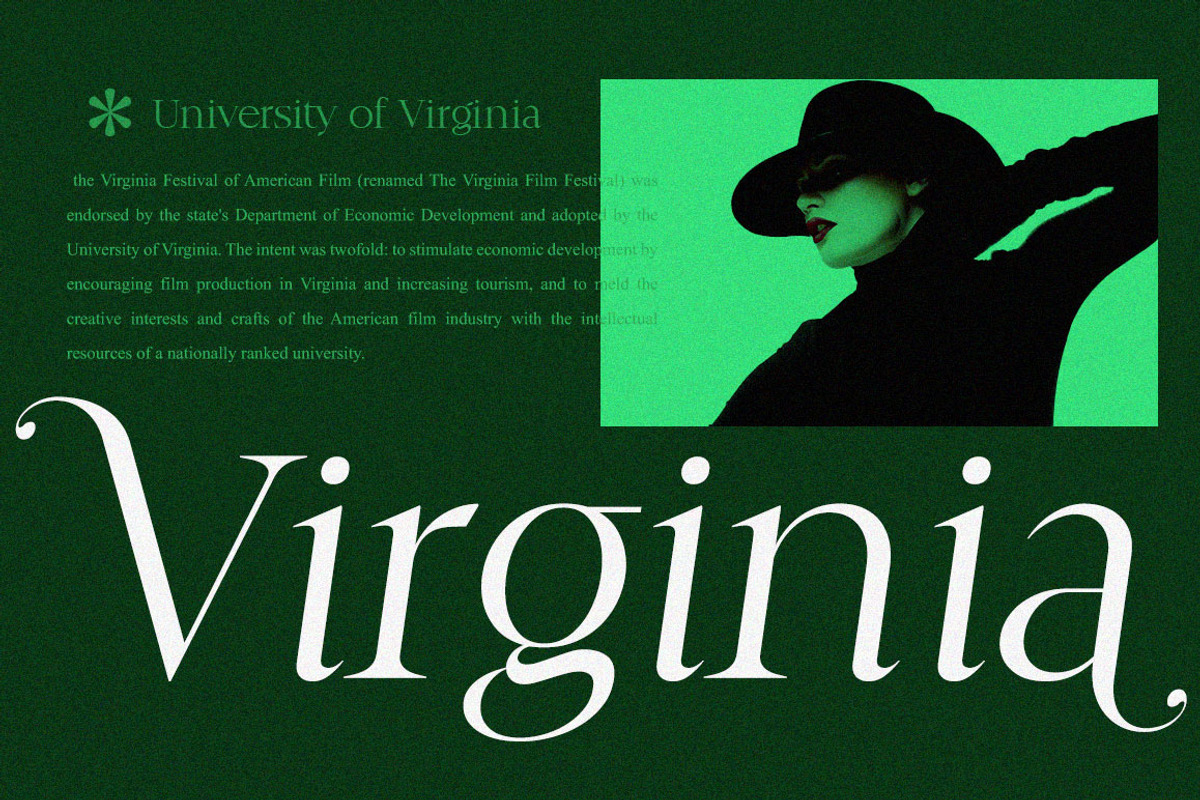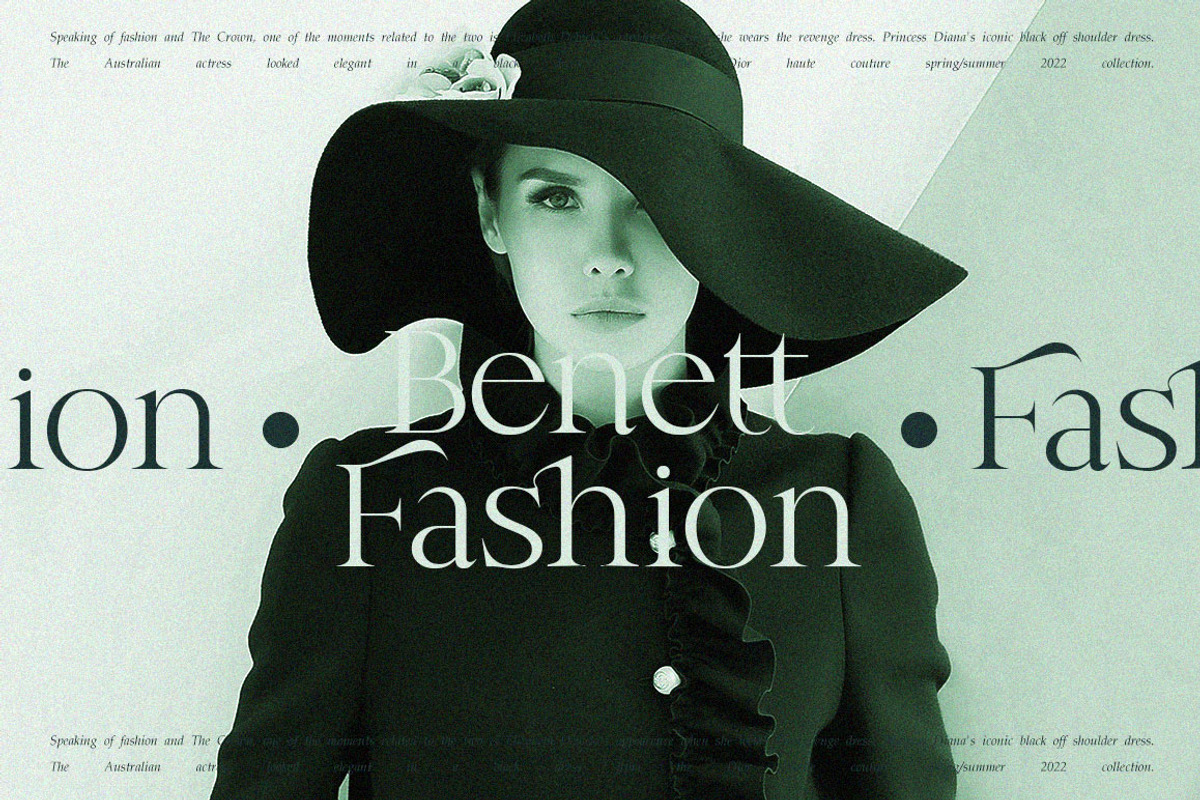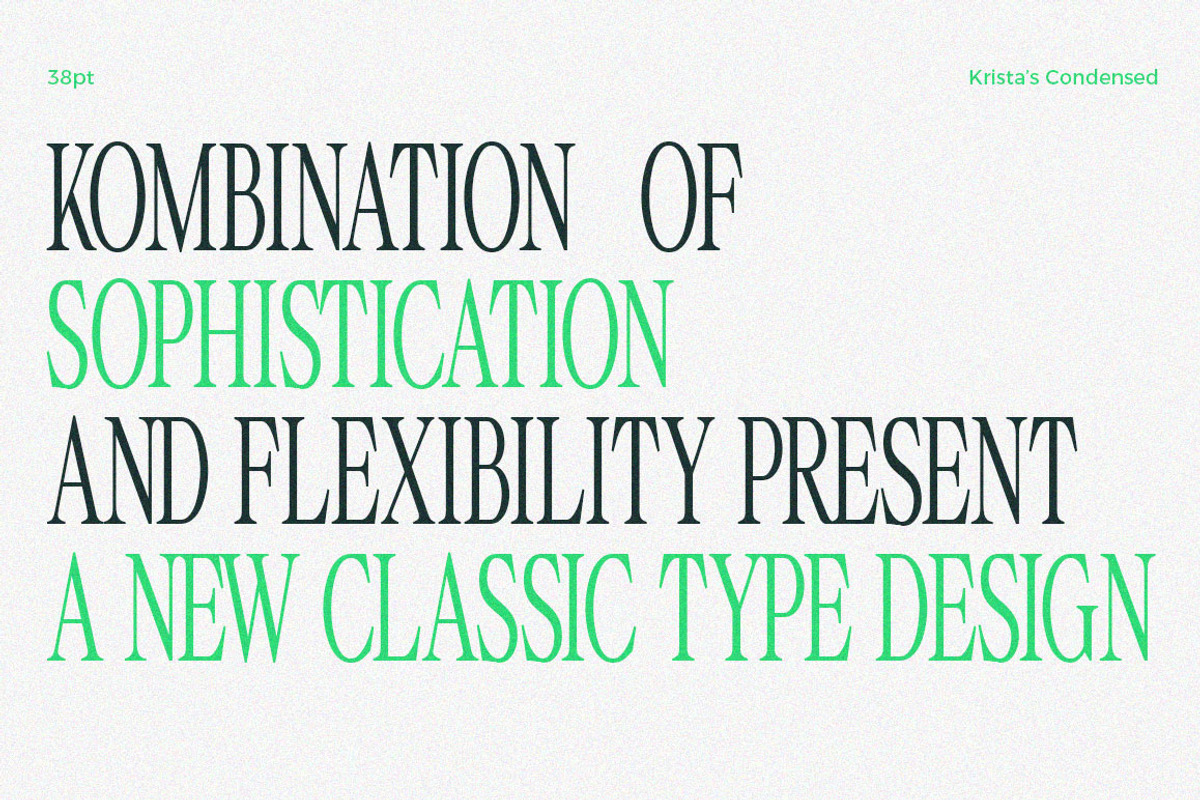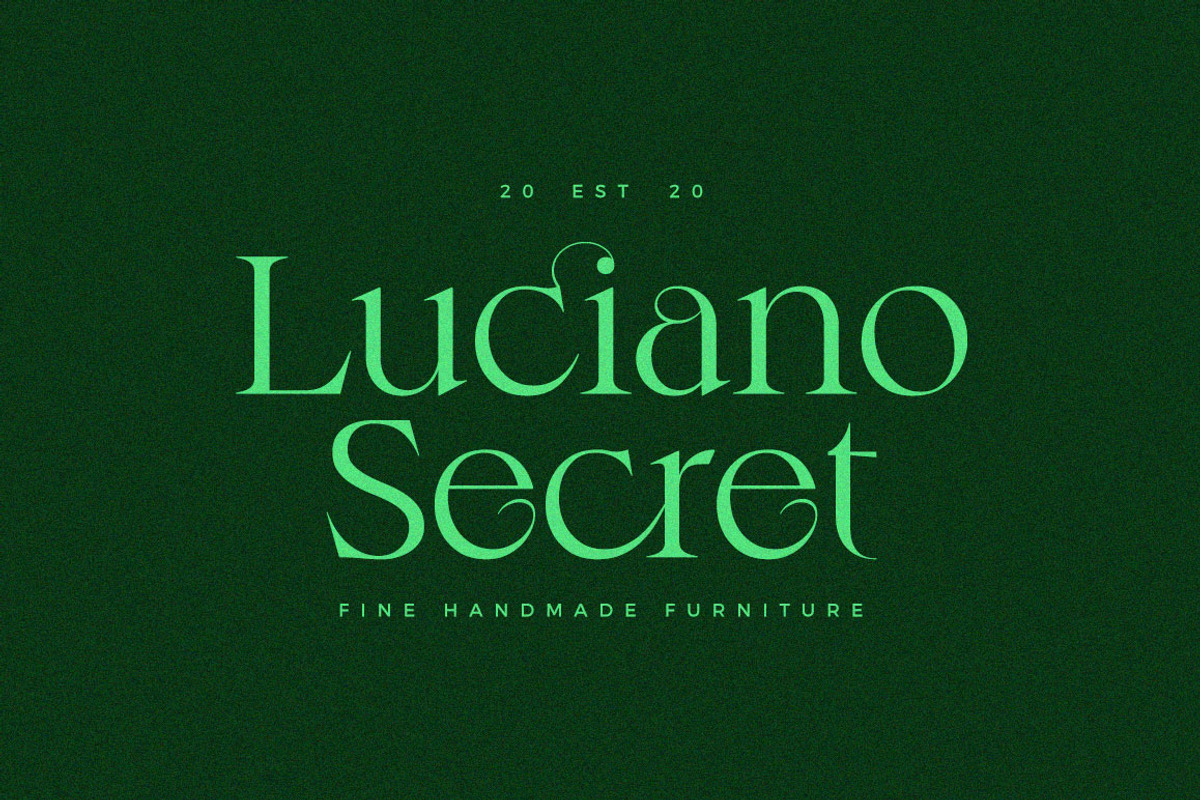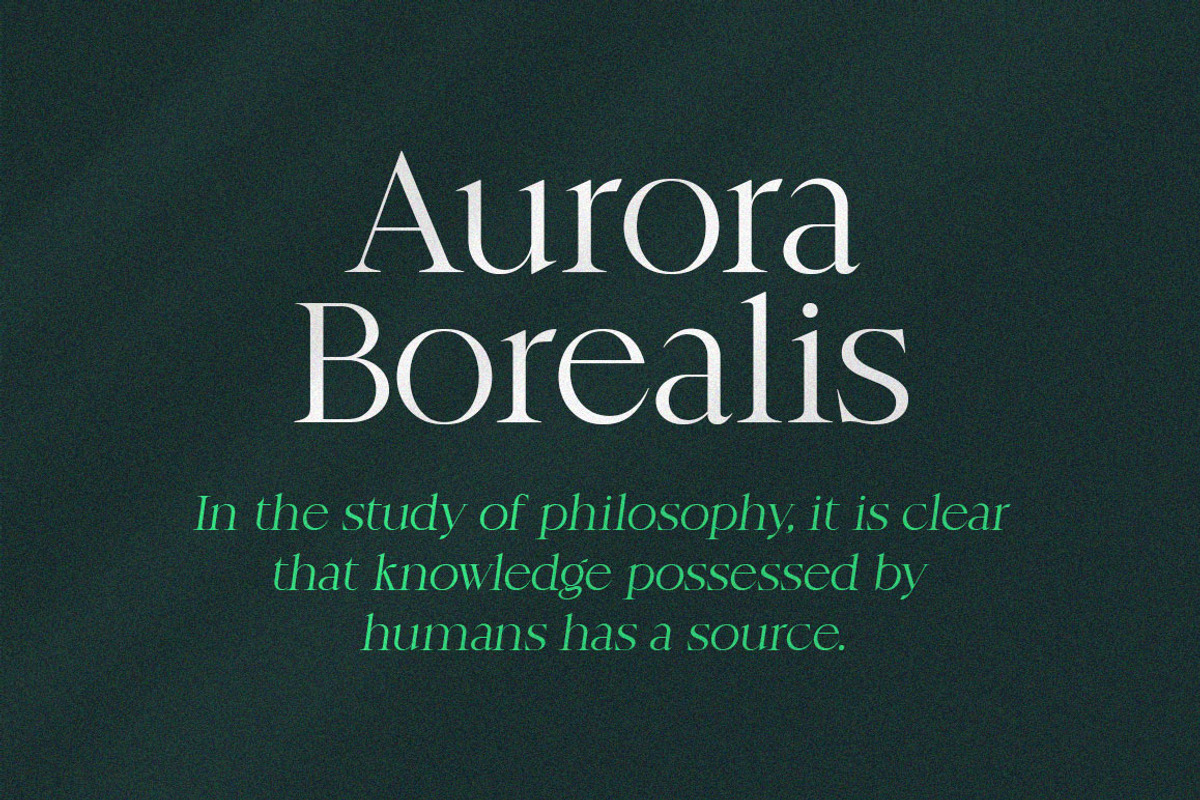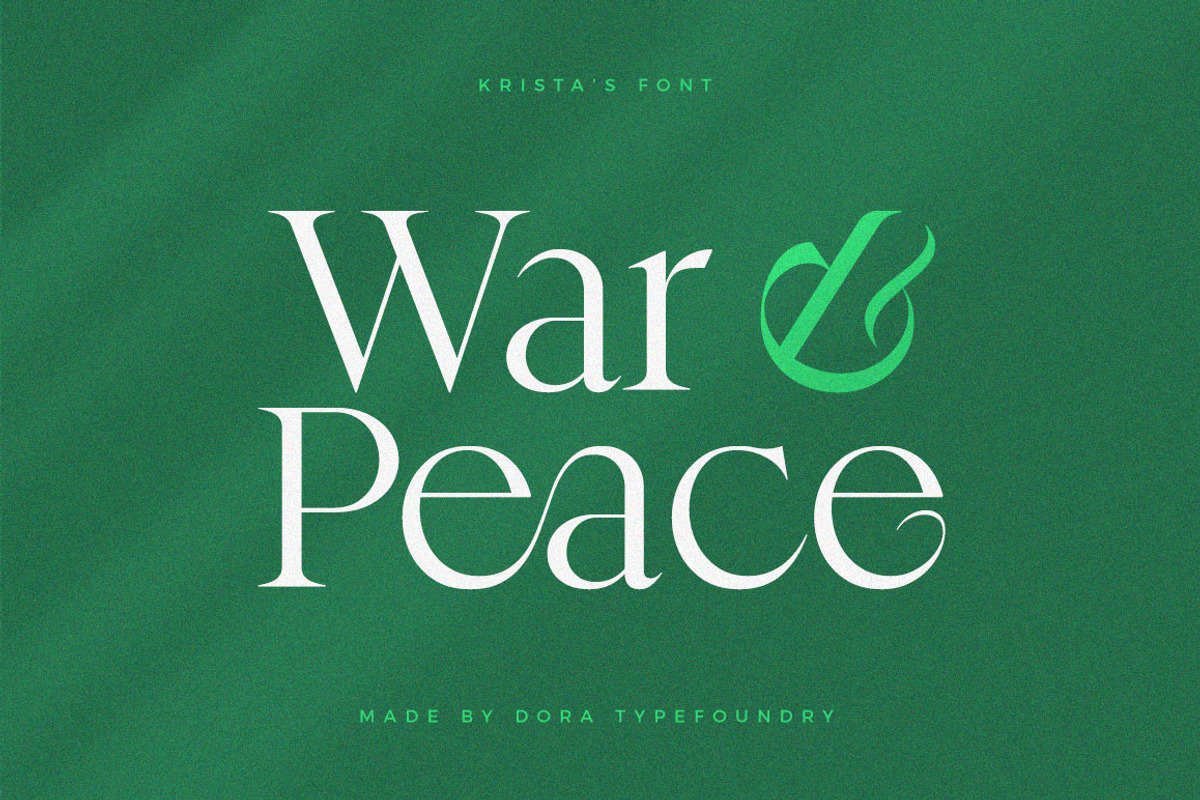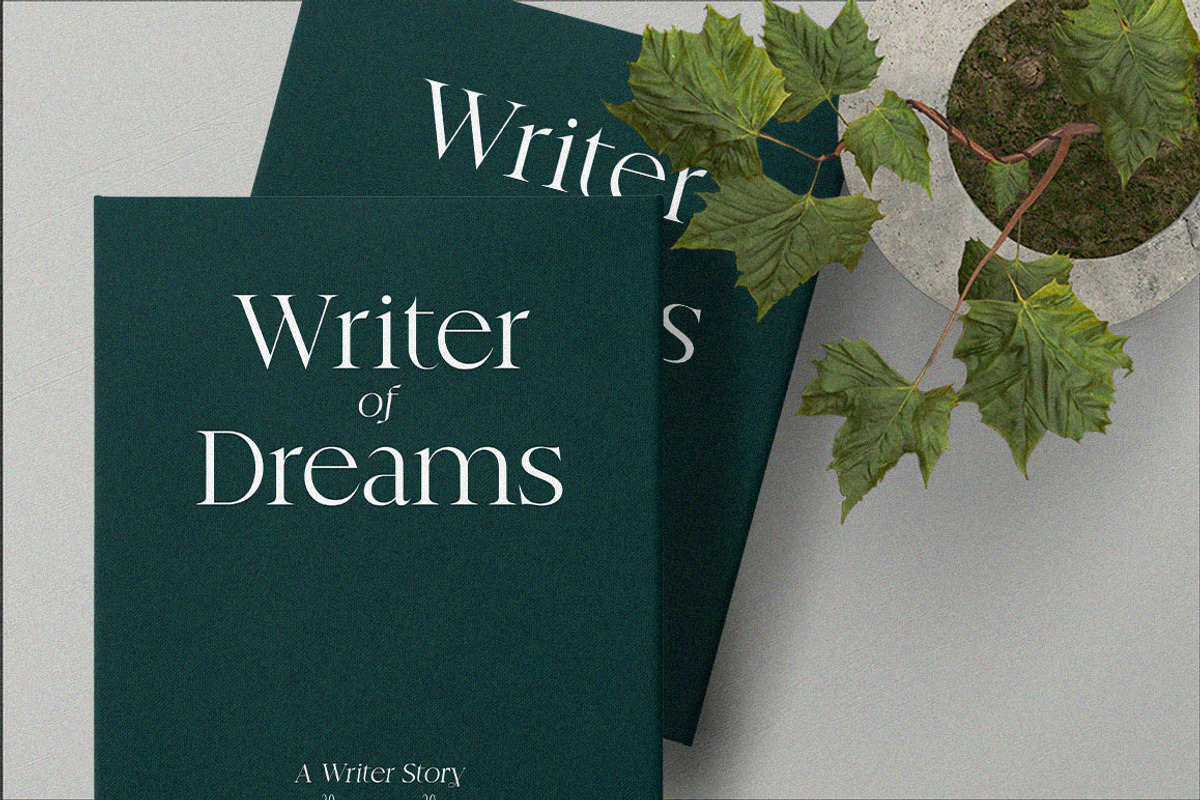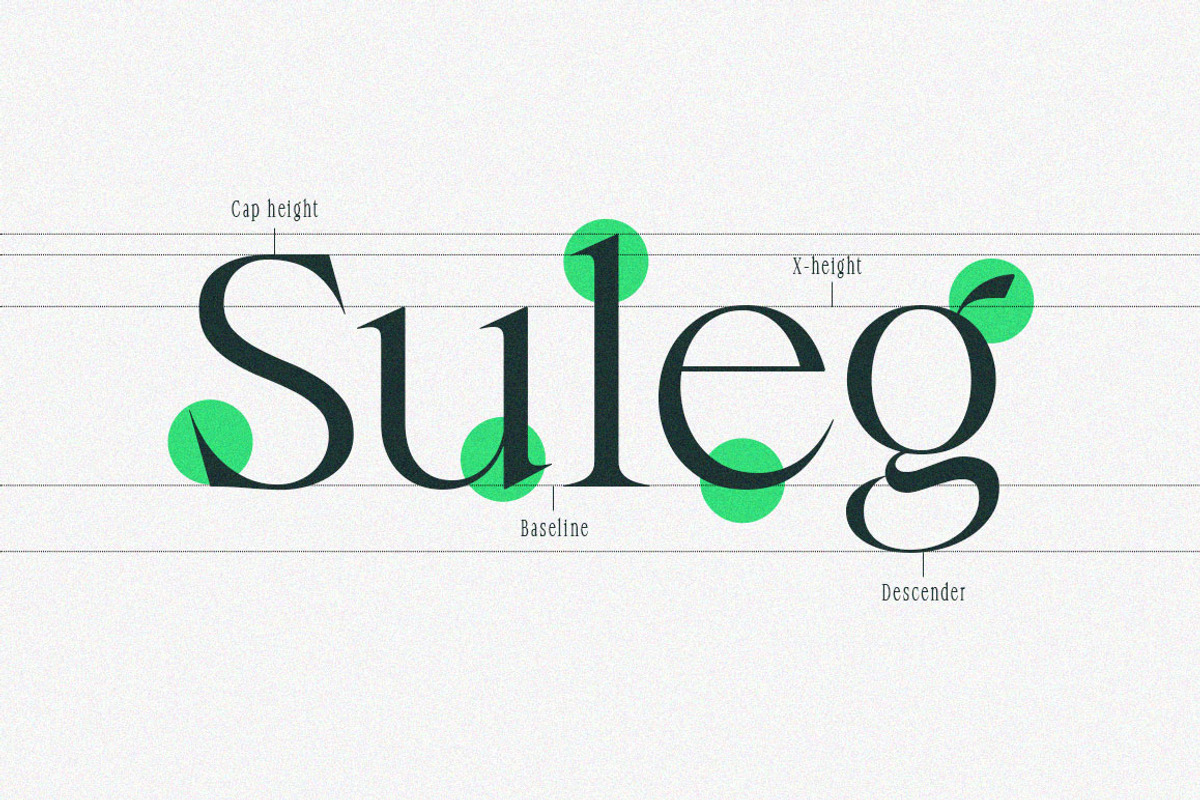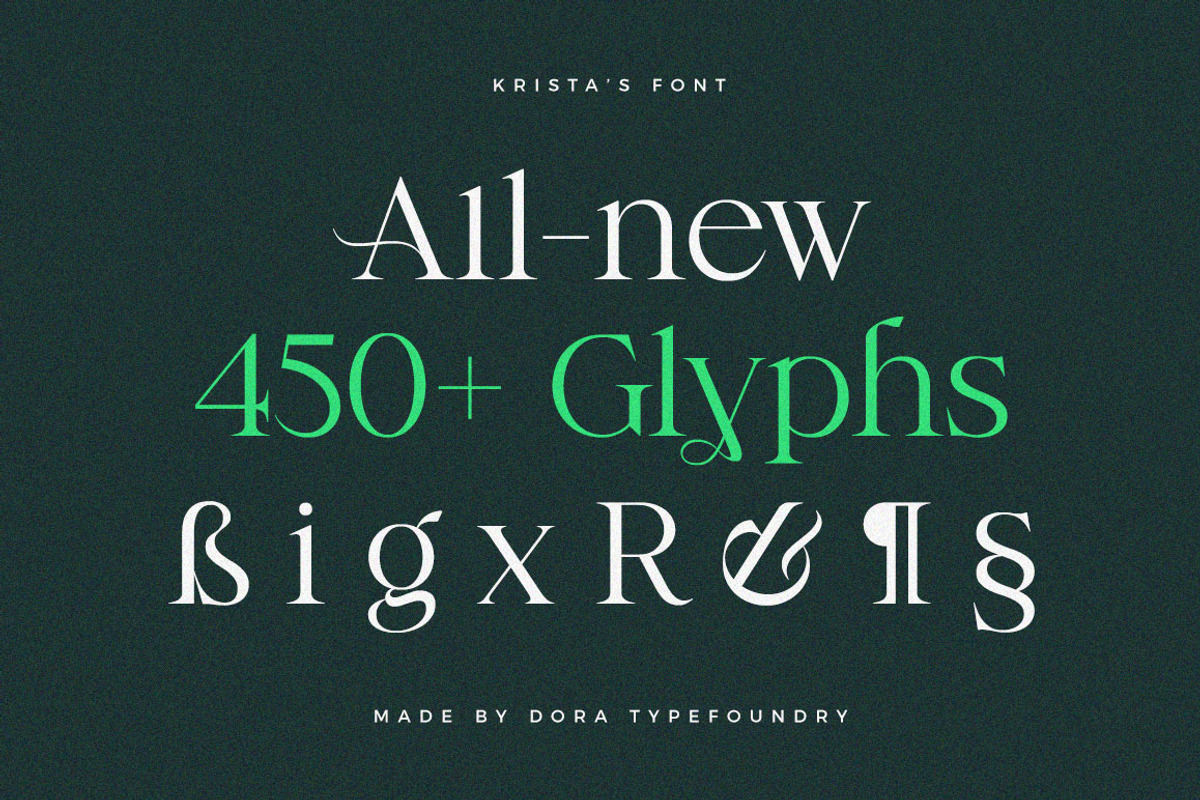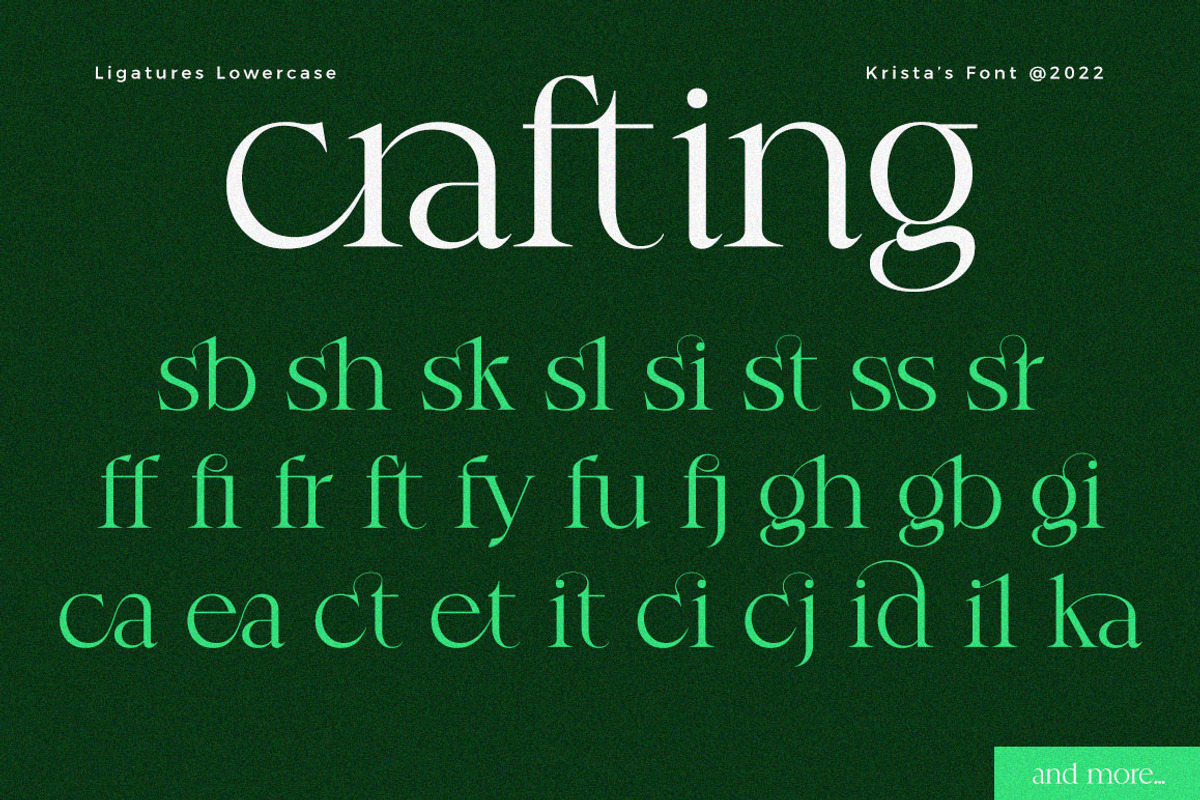
Krista's - Display Serif
Krista's is an elegant classy serif display font with a uniquely styled ligature character set that connects letters smoothly. It also has 100+ binders, 115+ alternatives for uppercase and lowercase letters and multilingual support.
This font is perfect for your creative projects like Logotypes, printed quotes, invitations, cards, product packaging, headers, Letterheads, Clothing, Web design, Magazines, Books, etc.
FEATURE:
- Number of Glyphs : 457
- Punctuation and Marks
- Symbol
- Alternate Ligatures & Characters